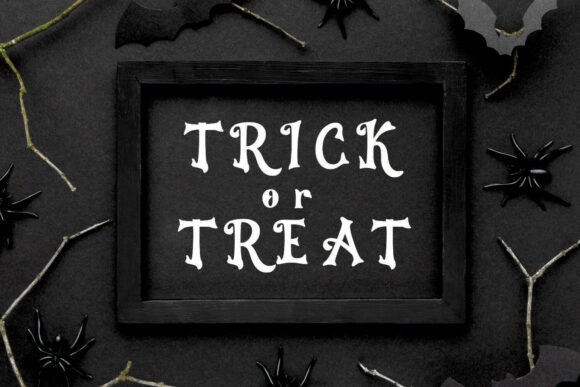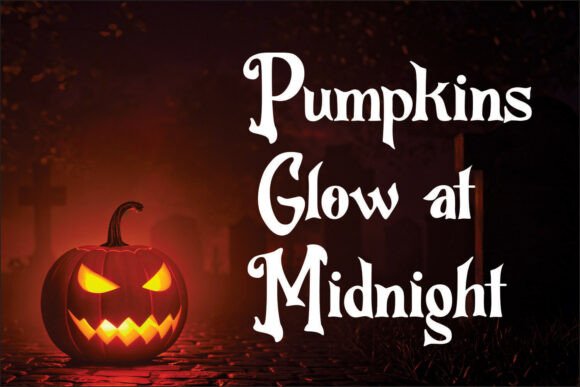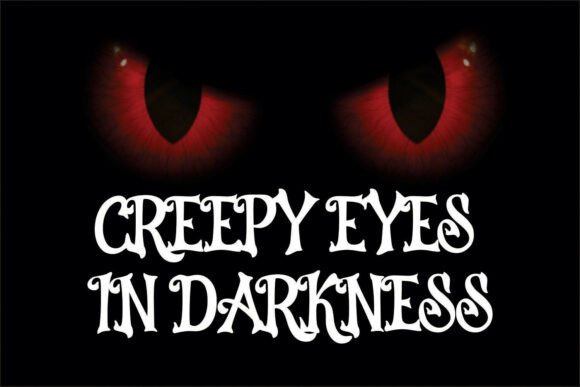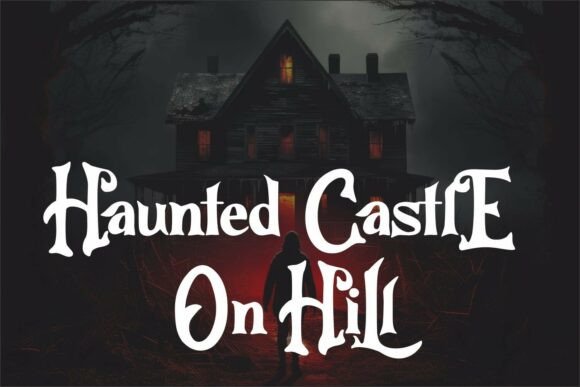
Happy Halloween Font: The Ultimate Choice for Spooky Designs
As the spookiest time of the year approaches, designers and crafters are on the lookout for the perfect font to capture the eerie essence of Halloween. Look no further than the “Happy Halloween” font, a bold and spooky display font designed to bring the perfect eerie vibe to your Halloween projects.
A Font that Screams Halloween
With sharp edges, playful yet creepy letterforms, and a touch of cartoonish horror, the “Happy Halloween” font is the ultimate choice for designs that need to scream “Halloween” in style. This font is perfectly crafted for Happy Halloween themes, making it an ideal choice for trick-or-treat party invitations, haunted house posters, horror movie titles, and festive banners.
Eerie Elegance and Bone-Chilling Fun
The “Happy Halloween” font covers it all, from eerie elegance to bone-chilling fun. Its dramatic and eye-catching letter shapes make sure your words stand out whether in print or on screen. Whether you’re designing a spooky invitation or a horror movie poster, this font is sure to grab attention and leave a lasting impression.
Perfect for Horror, Creepy, and Mystery-Inspired Designs
With its unique spooky charm, the “Happy Halloween” font fits perfectly into horror, creepy, and mystery-inspired designs. It’s great for flyers, t-shirts, mugs, stickers, social media posts, and even candy bag labels. The font’s versatility makes it an excellent choice for designers and crafters who want to create a wide range of Halloween-themed designs.
Add a Touch of Spookiness
To take your designs to the next level, add a few bats, spider webs, or pumpkins to create a spooky atmosphere. The “Happy Halloween” font pairs perfectly with these Halloween-themed elements, making it easy to create designs that are both eerie and eye-catching.
Key Features of the Happy Halloween Font
- Bold and Spooky Display Font: The “Happy Halloween” font is designed to make a statement with its bold and spooky letterforms.
- Sharp Edges and Playful Letterforms: The font’s sharp edges and playful letterforms create a unique and eye-catching look.
- Cartoonish Horror: The font’s cartoonish horror elements add a touch of whimsy and fun to your designs.
- Perfect for Halloween Themes: The “Happy Halloween” font is perfectly crafted for Happy Halloween themes, making it an ideal choice for trick-or-treat party invitations, haunted house posters, and more.
- Versatile and Easy to Use: The font is versatile and easy to use, making it perfect for a wide range of design projects.
Design Ideas Using the Happy Halloween Font
The “Happy Halloween” font is perfect for a wide range of design projects, including:
- Trick-or-Treat Party Invitations: Create spooky and fun invitations that will get your guests in the mood for Halloween.
- Haunted House Posters: Design eye-catching posters that will draw in thrill-seekers and horror fans.
- Horror Movie Titles: Use the “Happy Halloween” font to create creepy and attention-grabbing titles for your horror movie projects.
- Festive Banners: Design festive banners that will add a touch of spookiness to your Halloween celebrations.
- T-Shirts and Mugs: Create spooky and fun designs for t-shirts and mugs that will make great Halloween gifts.
In conclusion, the “Happy Halloween” font is the ultimate choice for designers and crafters who want to create spooky and eye-catching designs for Halloween. With its bold and spooky letterforms, sharp edges, and playful yet creepy design, this font is perfect for a wide range of Halloween-themed projects. So why wait? Download the “Happy Halloween” font today and start creating your own spooky designs!